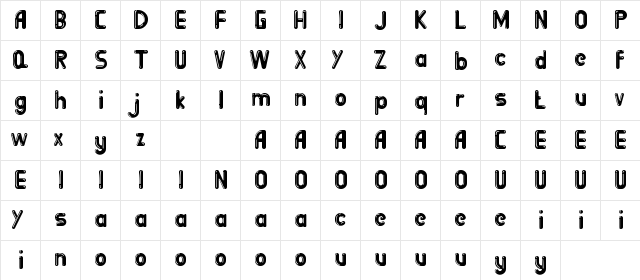
BigBOBY Demo Balloons Regular
| Foundry | Edric Studio |
| Designer | Ega Nugraha |
Design Context for BigBOBY Demo Balloons Typeface
BigBOBY Demo Balloons takes a measured approach to typography — its balanced proportions and neutral character make it a reliable workhorse for both digital and print work.